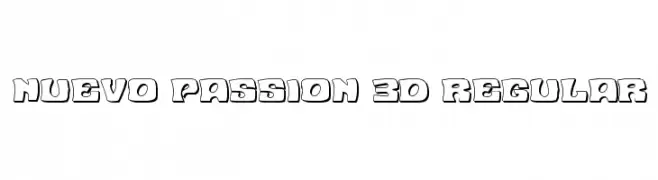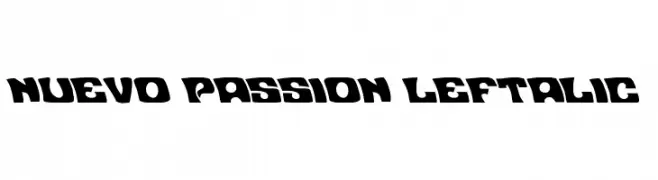
A bold, italicized font with outlined, three-dimensional characters.
A bold, condensed, and italicized font with a modern and dynamic style.
A bold, slanted font with a dynamic and modern style.
A bold, dynamic font with playful, rotated characters and a modern, whimsical style.
A bold, 3D outlined font with a playful and dynamic style.
A bold, italic font with a dynamic and energetic style.
A bold, left-leaning font with a dynamic and playful style.
A bold, dynamic font with thick strokes and a modern, artistic flair.
A bold, condensed font with a playful, retro aesthetic and high contrast strokes.
A bold, playful font with thick, rounded strokes and unique character shapes.